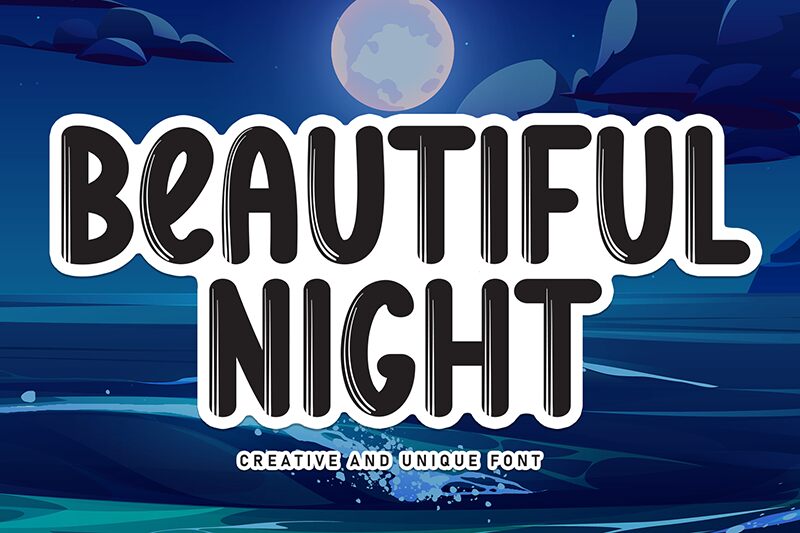
Beautiful Night
Beautiful Night font by Scratchones is a free brush font with condensed letters. Its rounded shapes form an artistic design that differs in thickness all throughout the edges. The retro feel of a handwriting held in a modern style was what influenced this geometric typeface that can be used for display titles or shorter body text.
Go for Beautiful Night to create logos and icons, signage, promotional material such as flyers and brochures, letterhead arrangement designs, packaging of books and magazines, website fonts for headers/titles or use on apps, blog posts design titles, social media images like Instagram quotes or stories in addition to Pinterest posters.